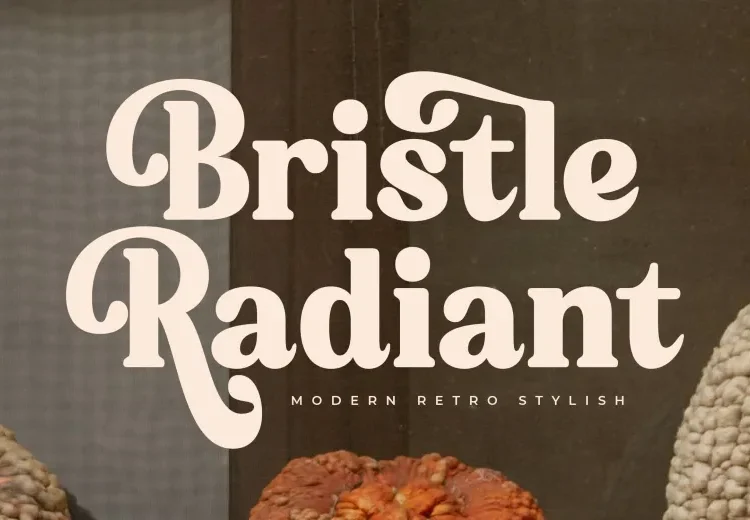
Bristle Radiant Font
Bristle Radiant is a modern yet classic font that seamlessly merges sophistication with contemporary flair. Its sharp lines and balanced proportions make it a perfect choice for a wide range of design projects, from editorial layouts to logos and branding materials. Bristle Radiant stands out with its timeless appeal and versatility, ensuring that any project it graces will exude both grace and professionalism.
Whether you’re designing for print or digital media, Bristle Radiant brings a touch of elegance and modernity to your work. Its clean, precise lines and well-proportioned letterforms offer a refined look that enhances the visual impact of your designs, making it an excellent choice for those seeking a font that combines classic style with modern sensibilities.